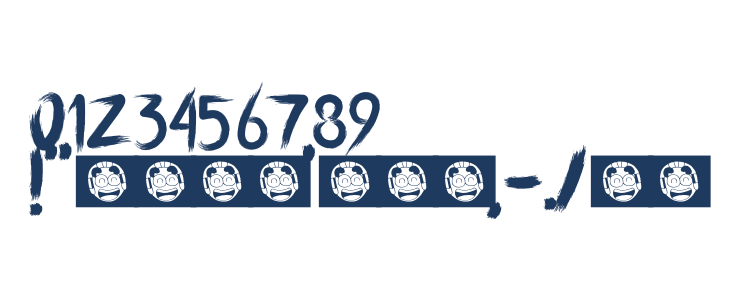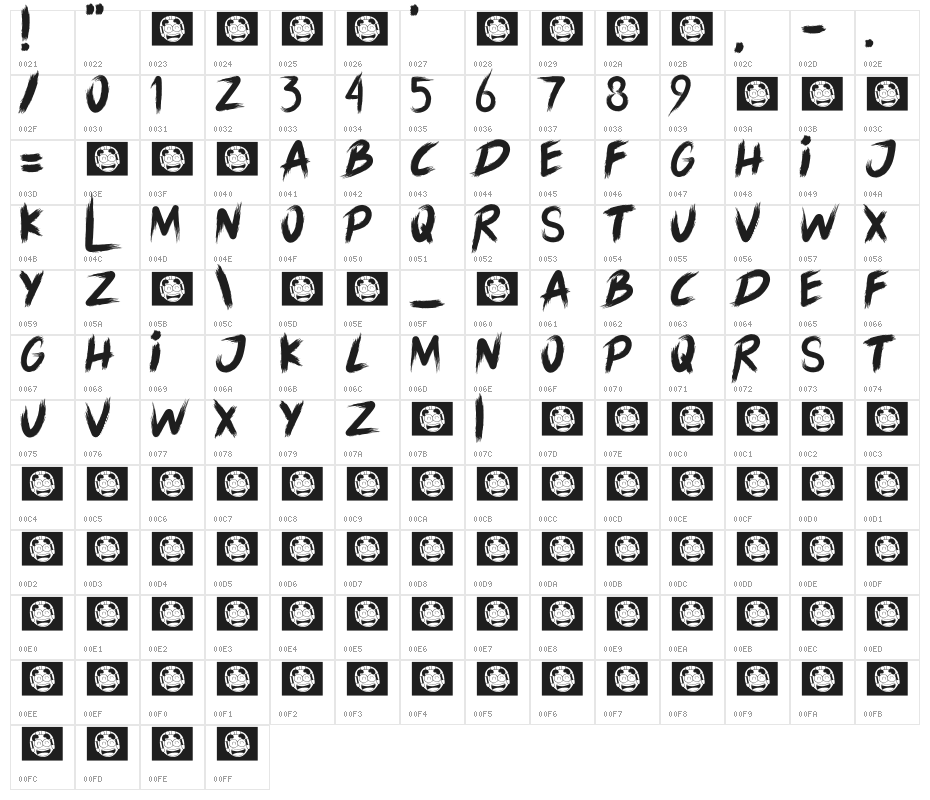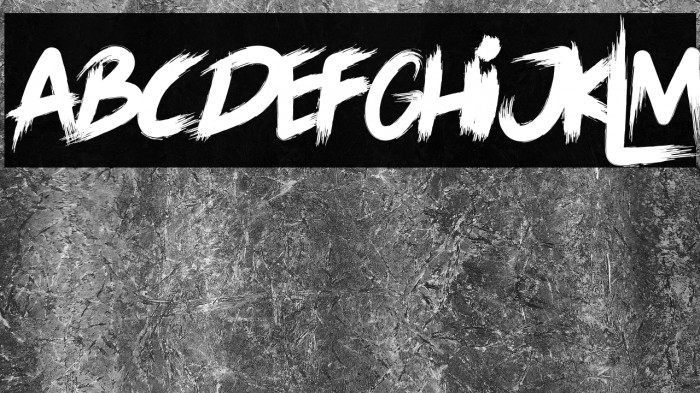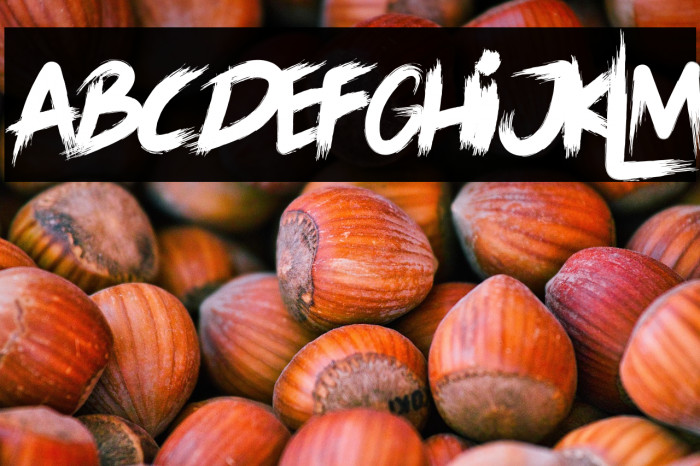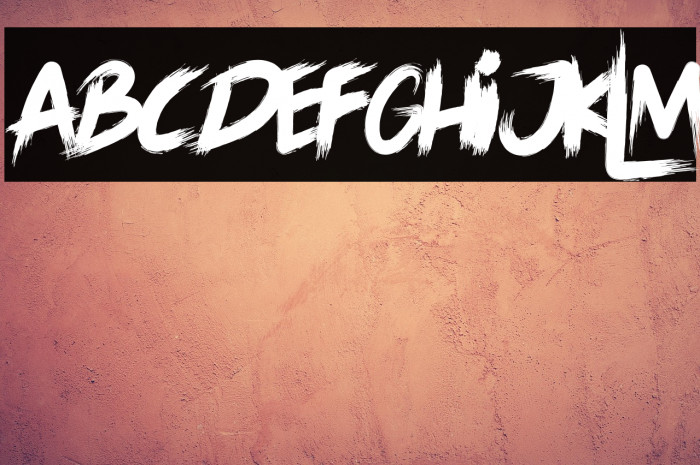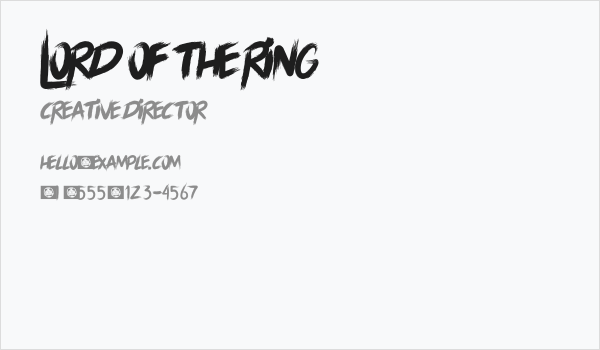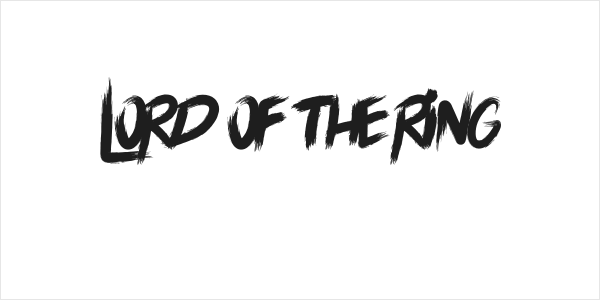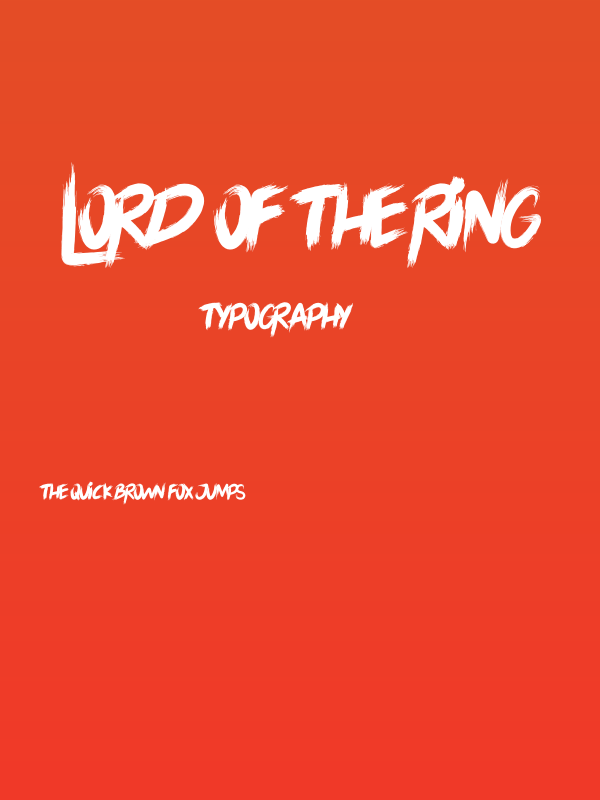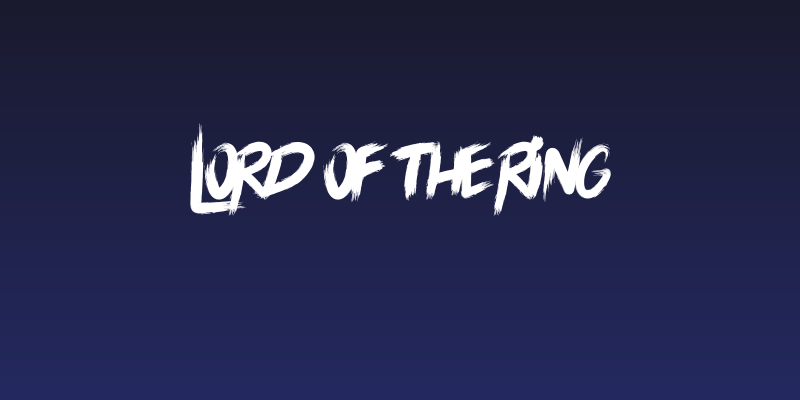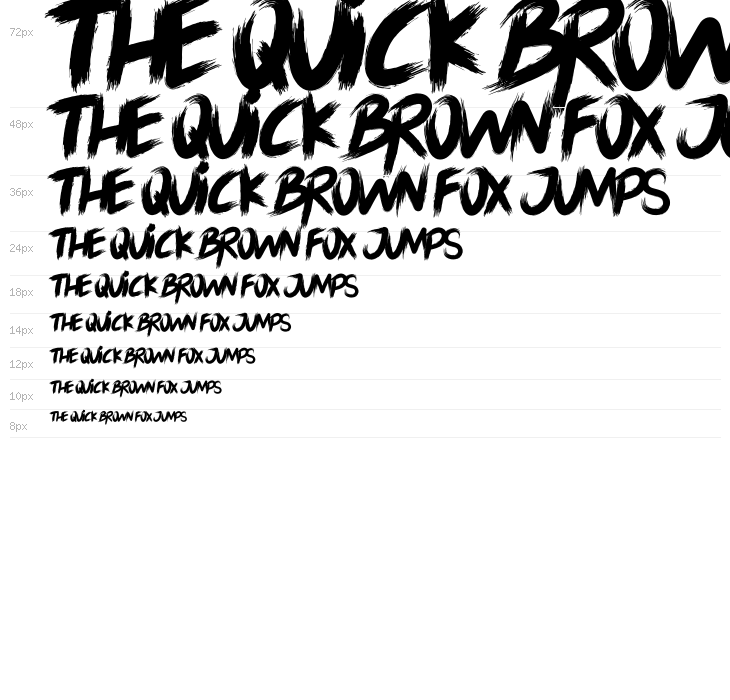
LORD OF THE RING Font
LORD OF THE RING Description
This font features a bold, brushstroke style with a dynamic and energetic appearance. The letters are crafted with a rough, textured edge, giving them a hand-painted look. The uppercase and lowercase characters maintain a consistent style, with exaggerated strokes and varying thickness that add to the font's dramatic flair. The numbers and special characters follow the same aesthetic, ensuring a cohesive design throughout. This font's unique style makes it stand out, perfect for projects that require a strong visual impact.
| Overall Style | Modern, Artistic |
| Proposed Projects | Ideal for posters, album covers, branding, and any project needing a bold, artistic touch. |